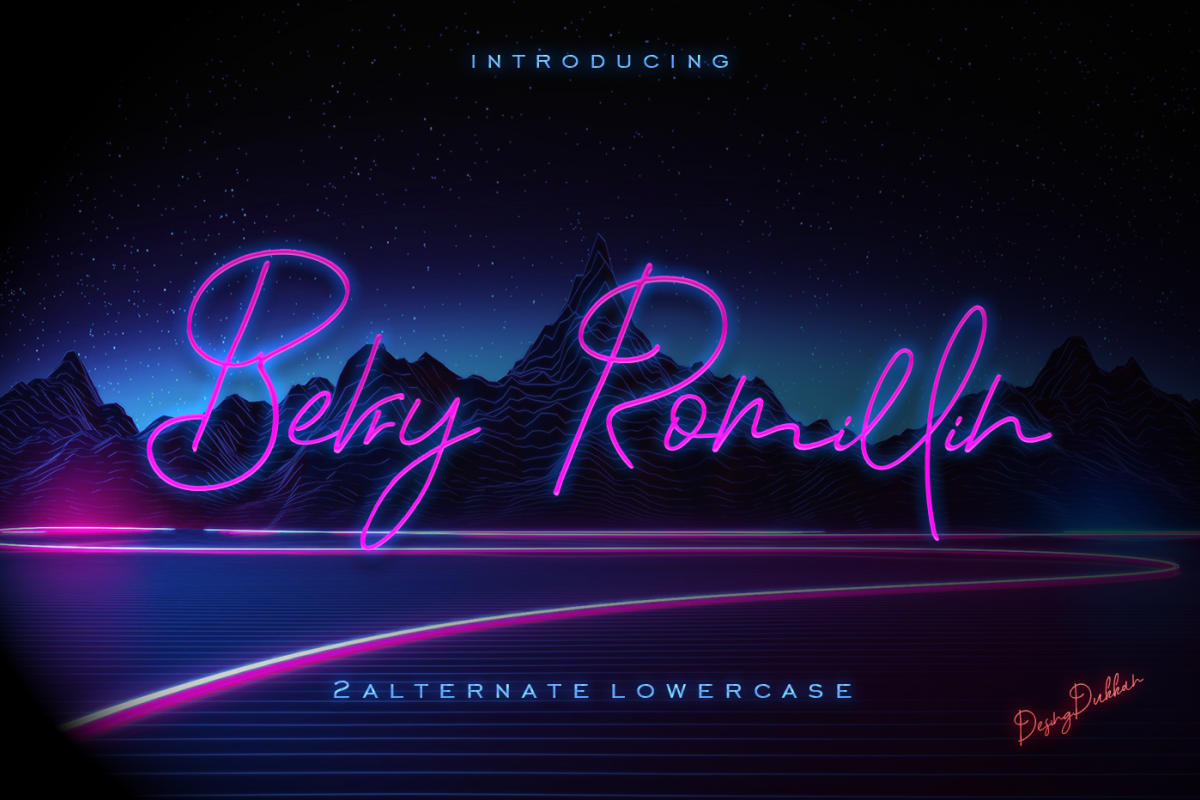
Berry Romillin Script Font
Let me introduce you the font ''Berry Romillin Script Font. It flows like a signature while you type it. It really shows the art of hand-work. It is very legible even though its nature looks like it has extreme lines. It is really unique in this regard. Awesome! Isn't it? :)